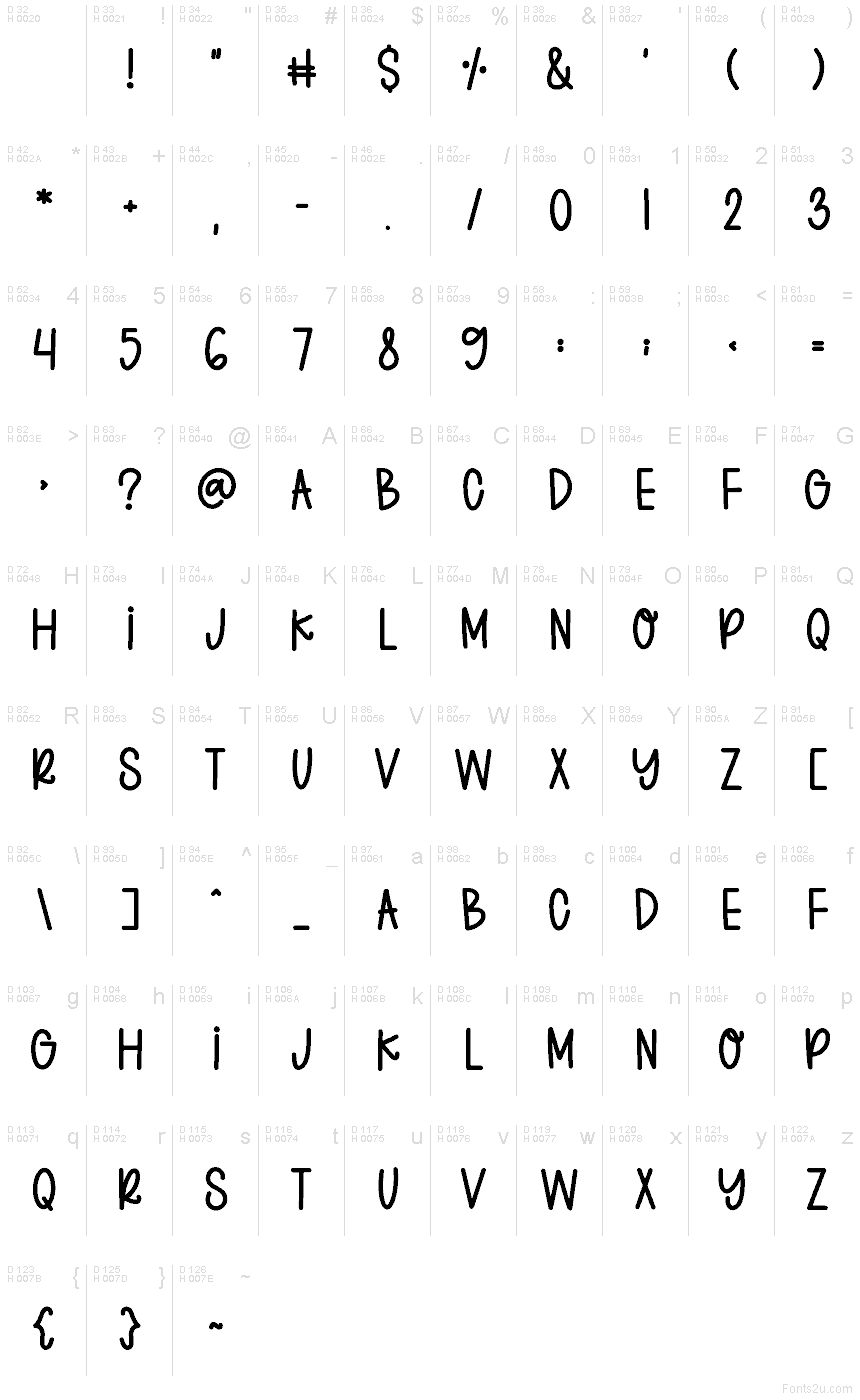
FBCaramelApple
FB Caramel Apple font by Font Bundles is a free bold handwritten display font. Tall, juicy strokes with rounded ends and a breezy, slightly bouncy rhythm give it that fresh-marker feel—friendly without getting messy. Built to shine on cheerful, crafty projects, it keeps letters open and legible so headlines read in a snap, even at a glance.
Using FB Caramel Apple, your designs snap to life on bake sale posters, farmers’ market labels, kids’ party invites, classroom printables, recipe cards, Instagram stories, and DIY merch. The steady verticals and roomy spacing make it easy to weed for cutters and to print cleanly. Pair this free font with a crisp geometric sans for body copy, and let it run a size or two larger to enjoy the lively texture.